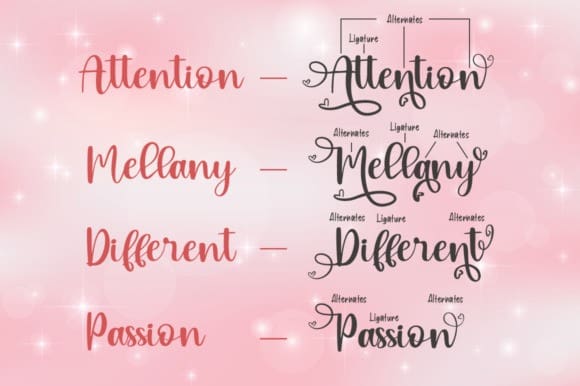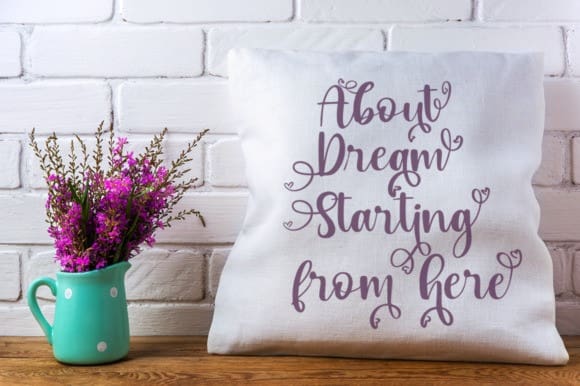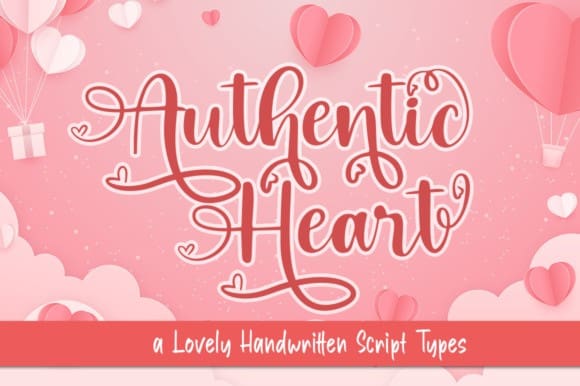
Authentic Heart Font
Authentic Heart Font is a sweet, all round and flexible handwritten font. Warm, romantic and jolly, this font will turn each of your project ideas into real works of art. Have fun with this beautiful font and explore its endless variations. This font is PUA encoded which means you can access all of the glyphs and swashes with ease!